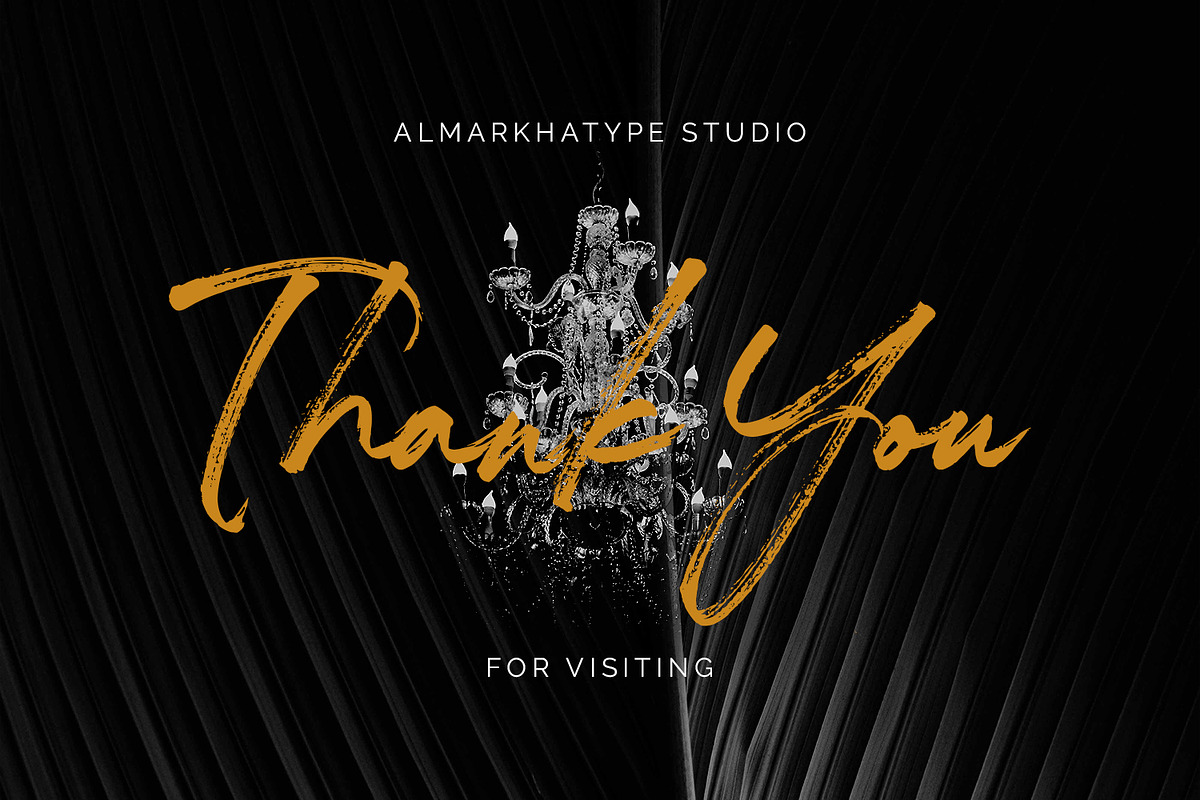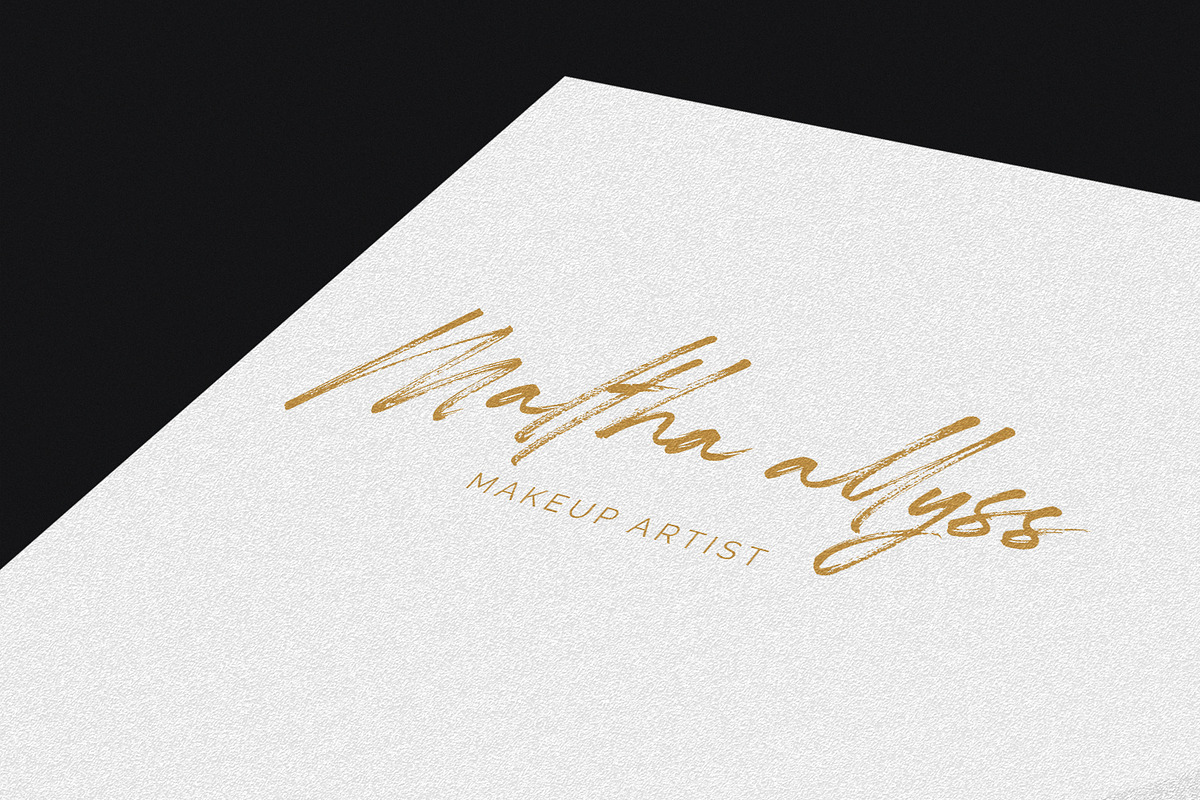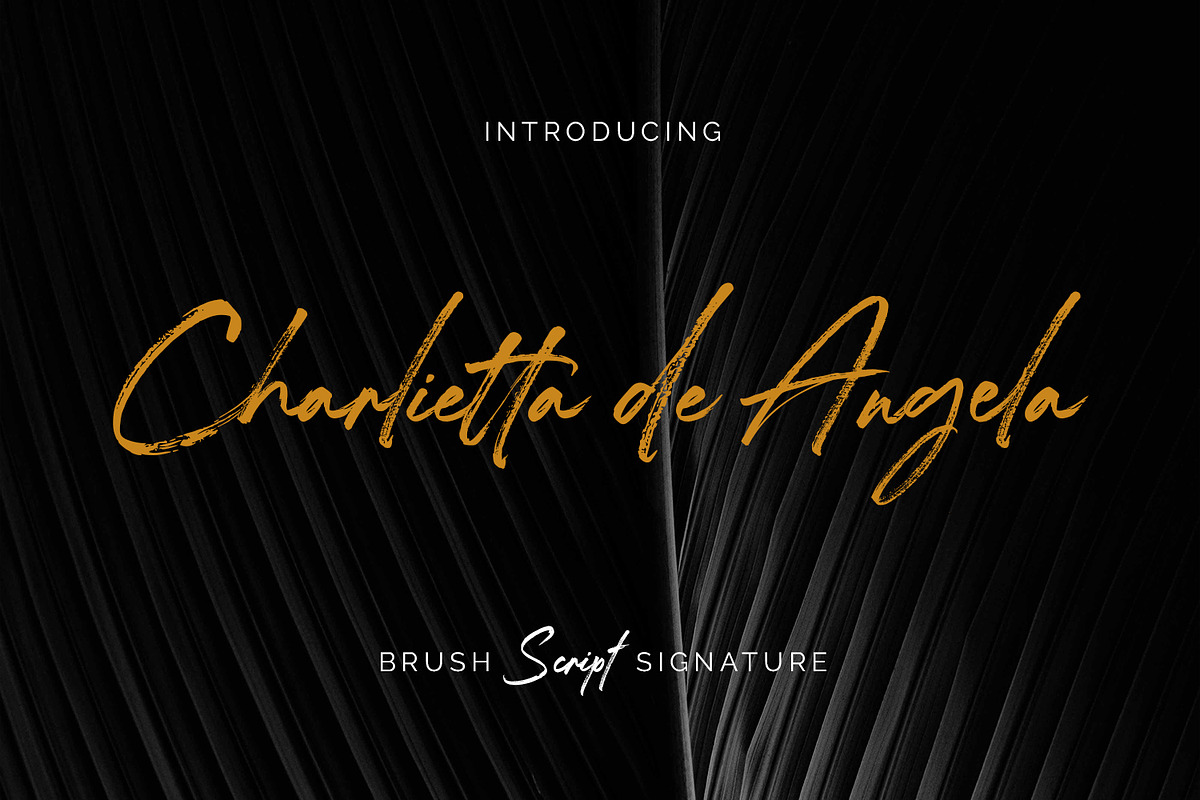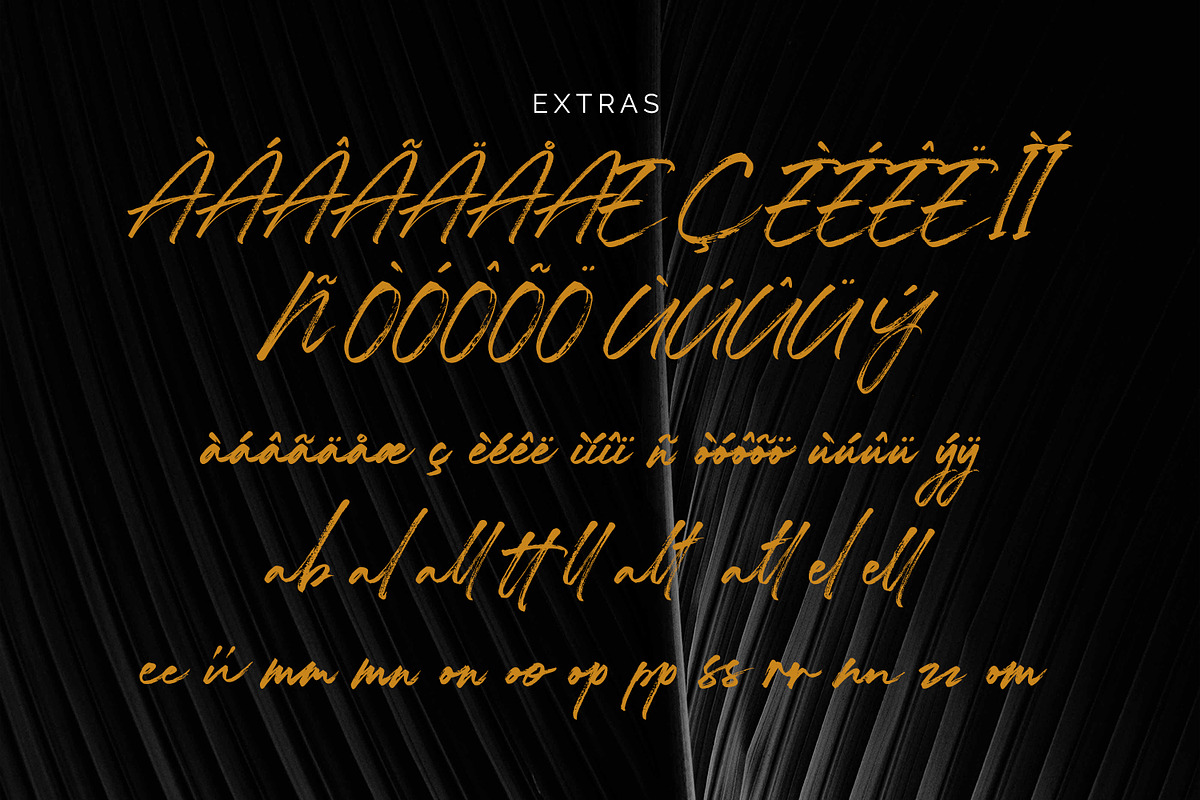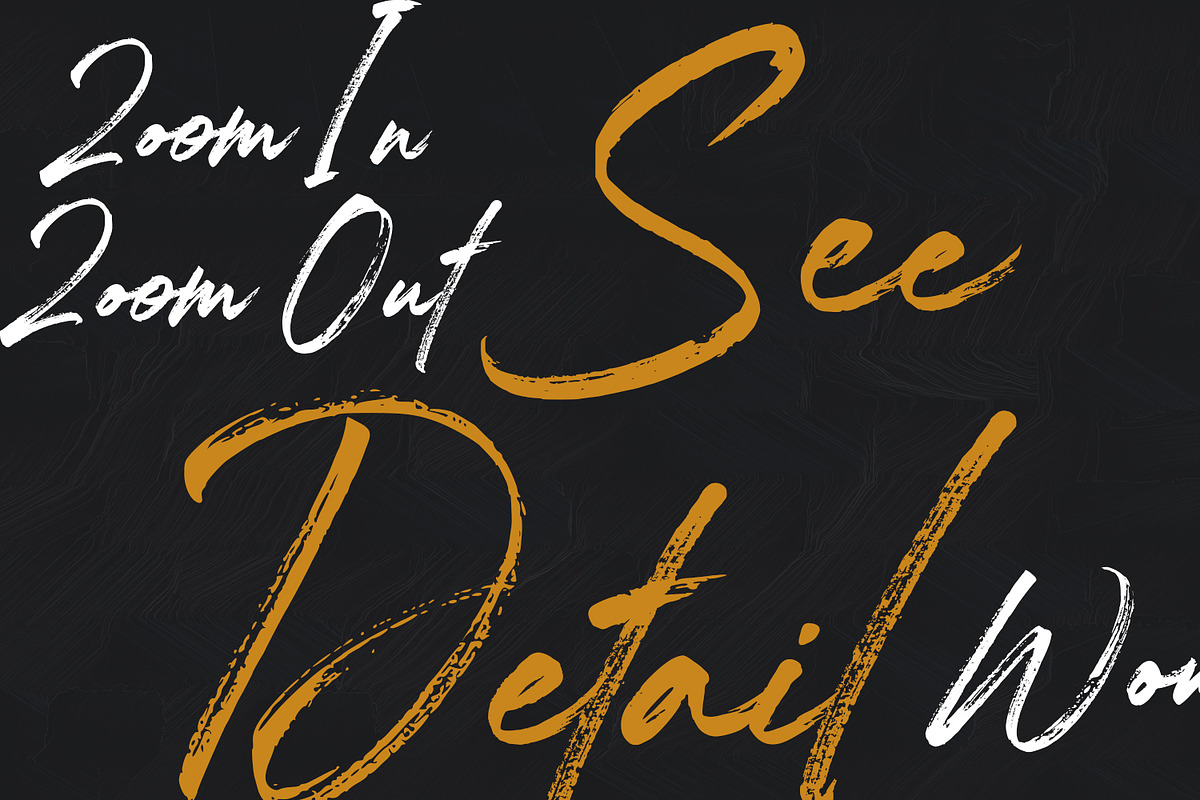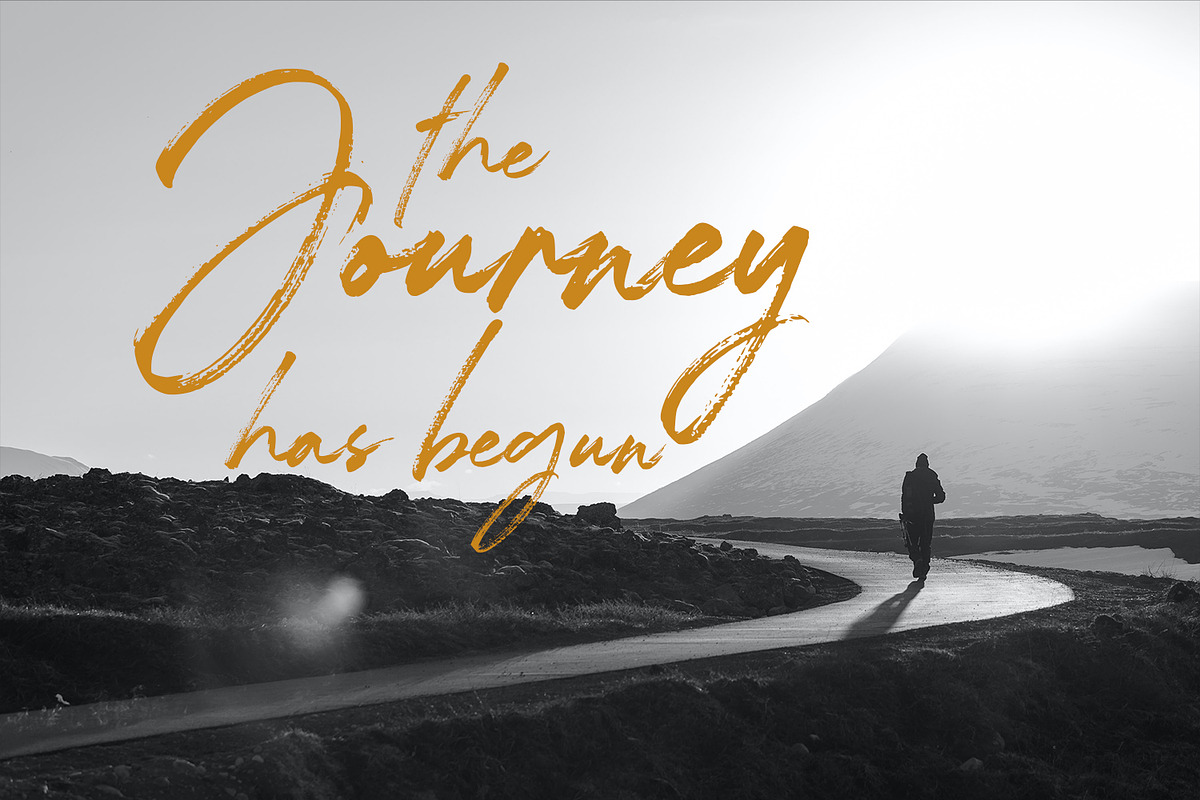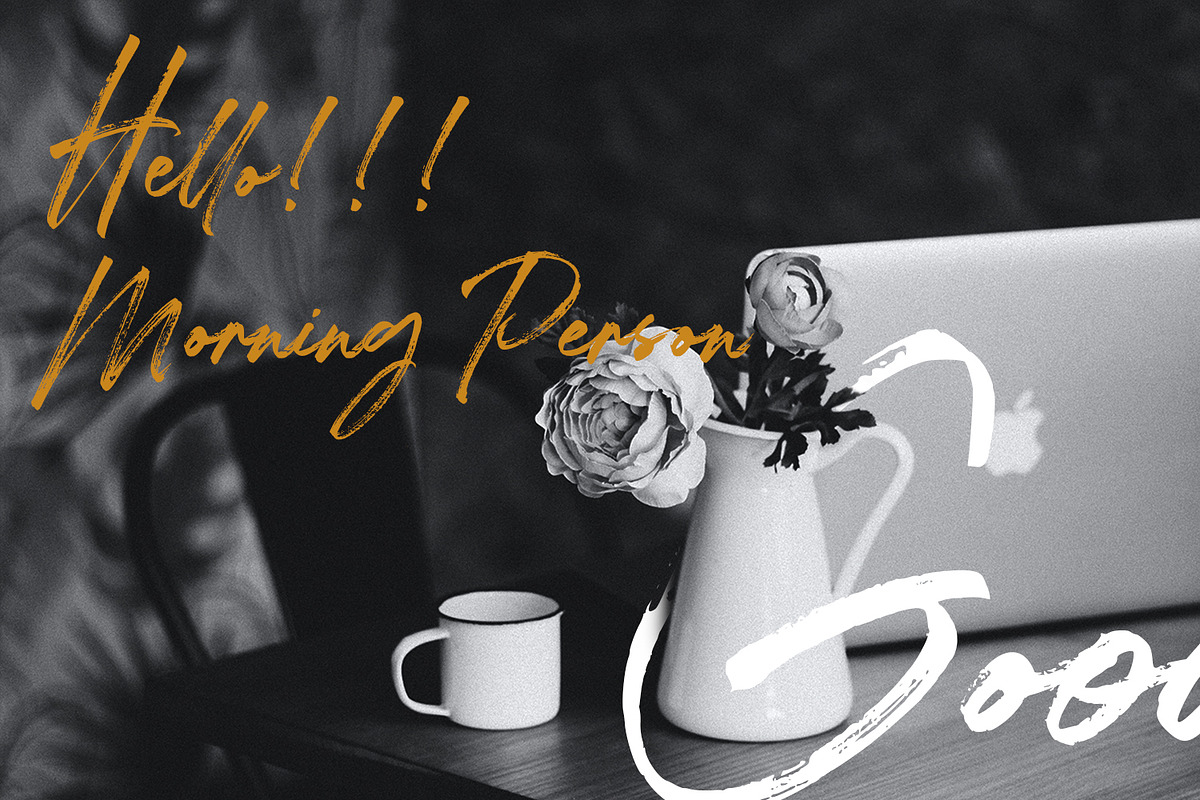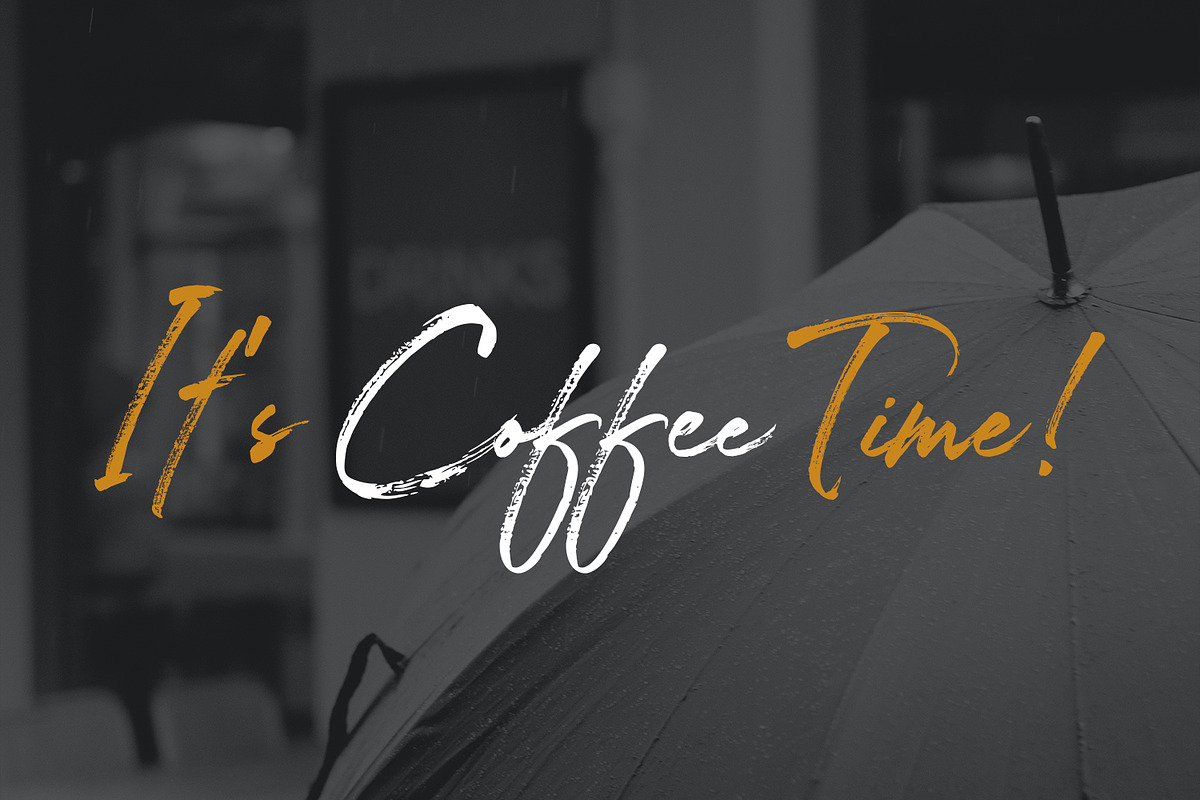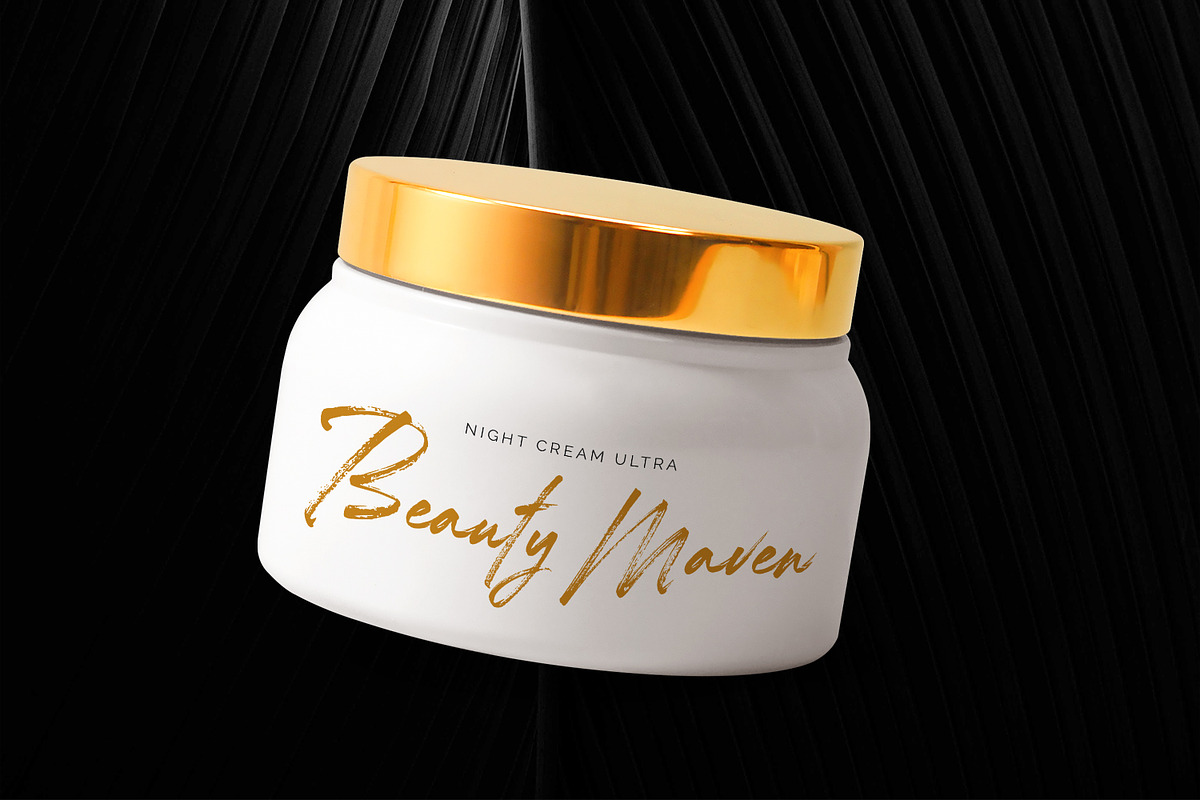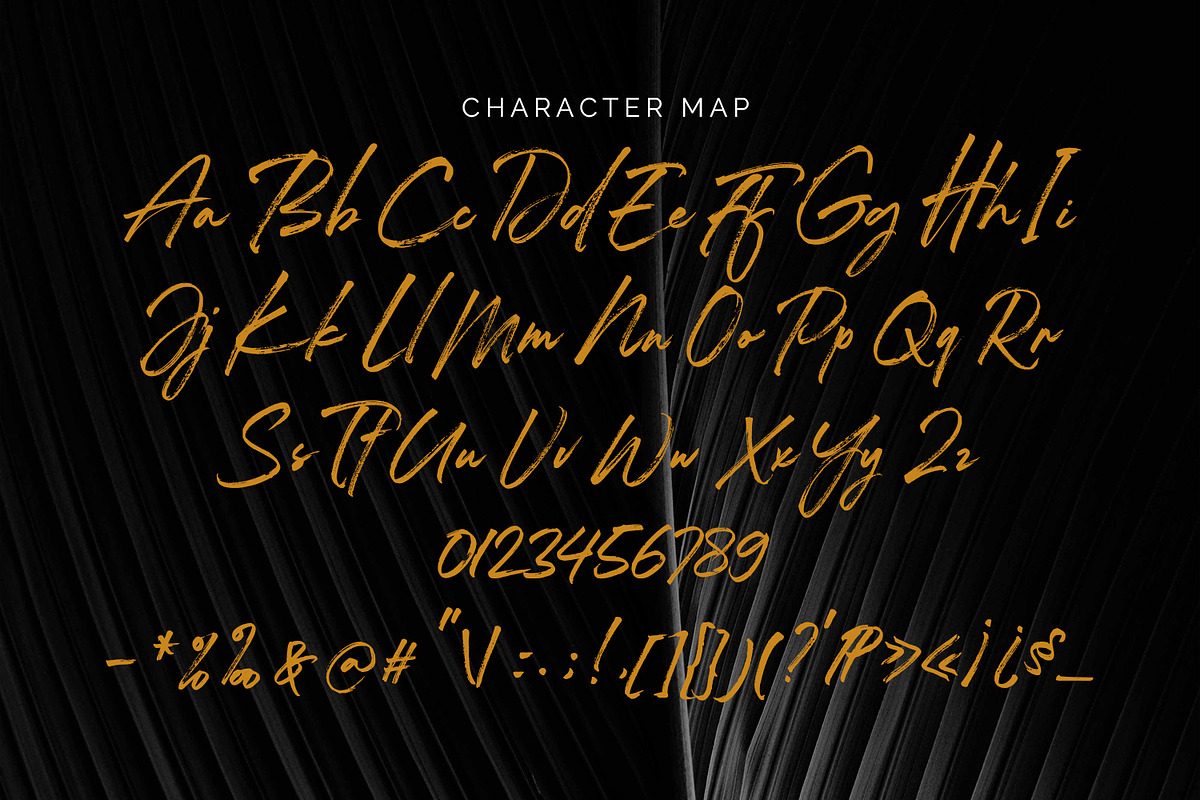
Charlietta de Angela - Brush Script
Introducing Charlietta de Angela - Brush Script Signature is a Authentic brush script that is written casually and quickly. Letters are made with brushes on paper. Then scanned and carefully drawn into vector format. That is why Charlietta de Angela has charming, authentic and relaxed characteristic more natural look to your text with a more natural look to your text. You can activate Ligature OpenType panel, Charlietta de Angela Perfect for designs, branding projects, Logo design, Quotes product packaging